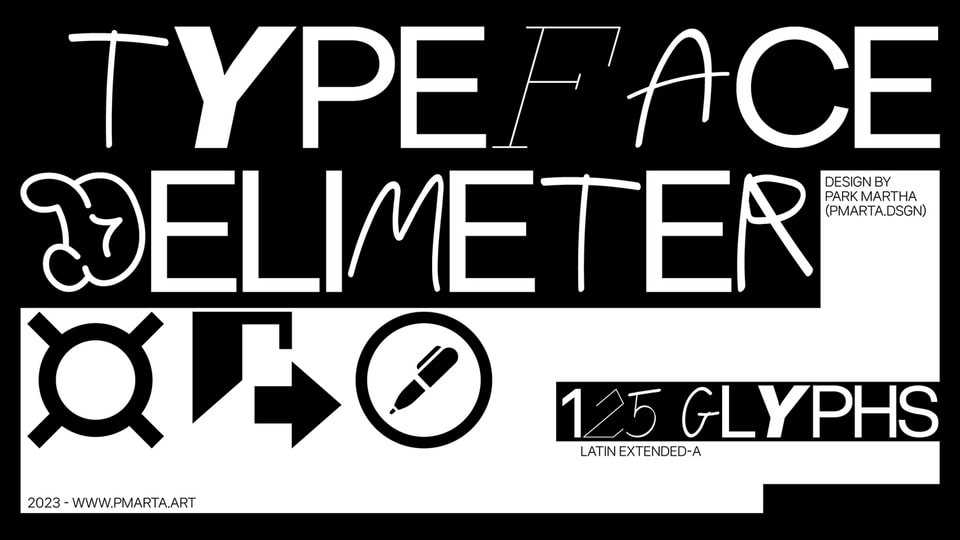
Download Delimeter font, a creative typeface consisting of 5 different parts. The font is designed for creative ideas and vibrant designs. Adds spice to any project: poster, banner, flyer, SMM design, product label, etc.
Designer: Martha Park